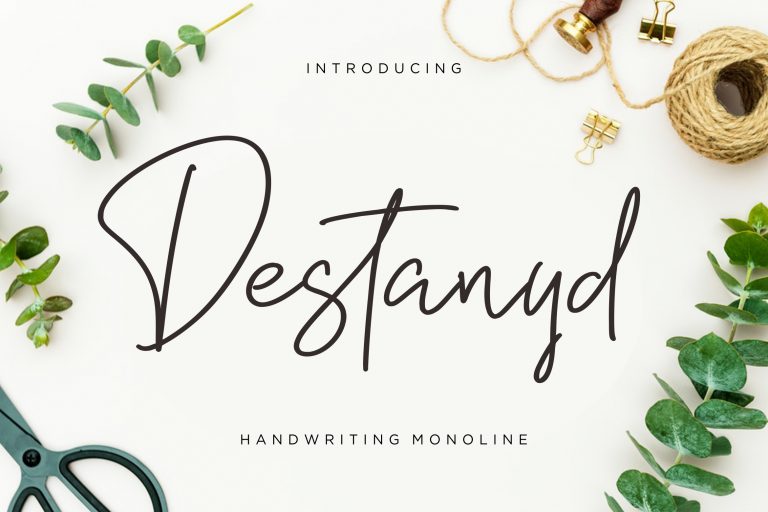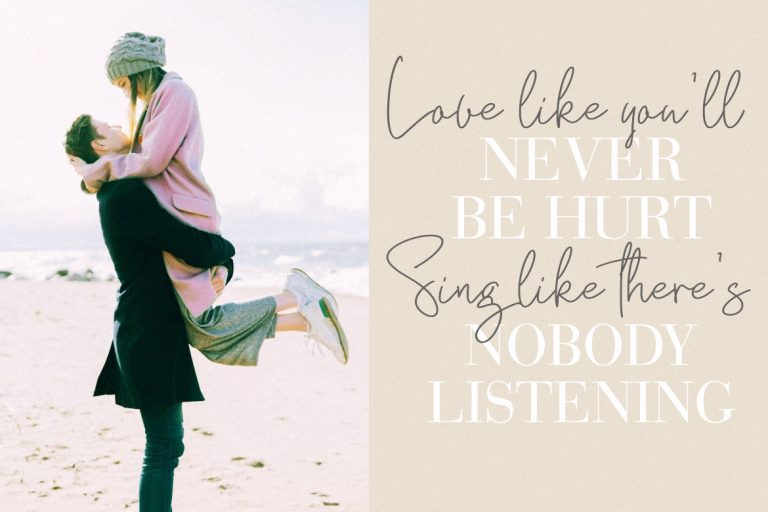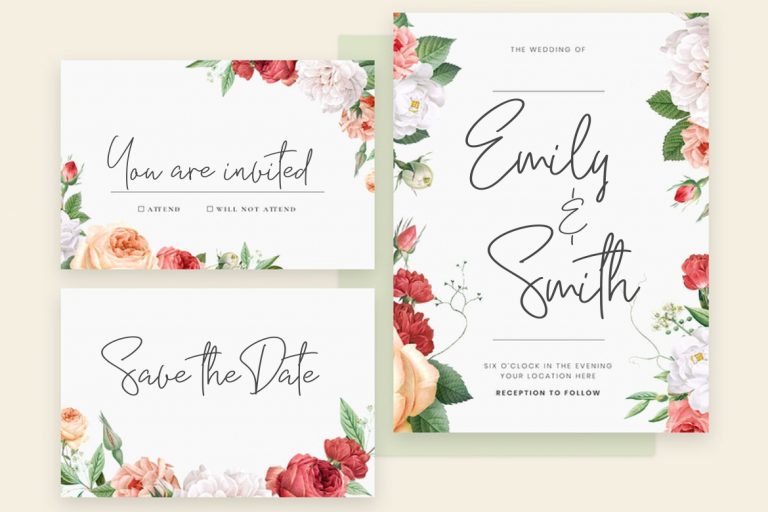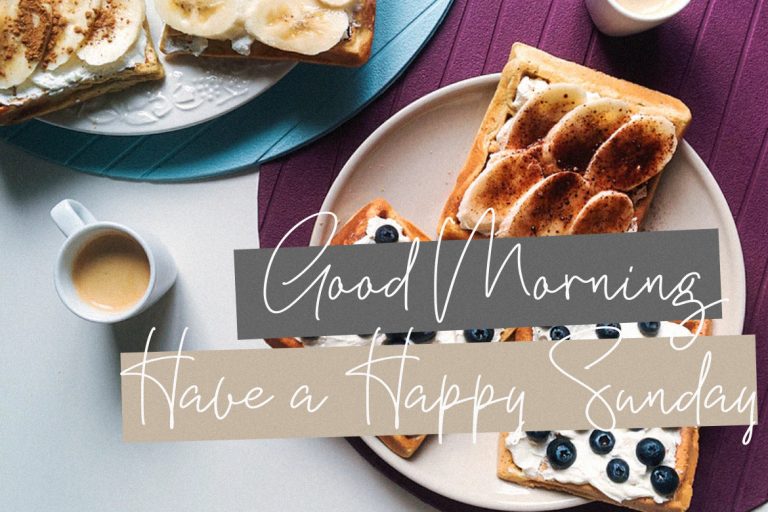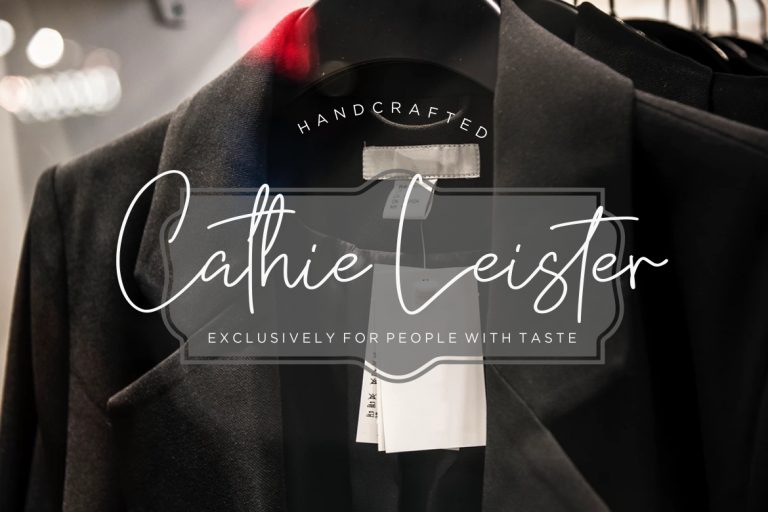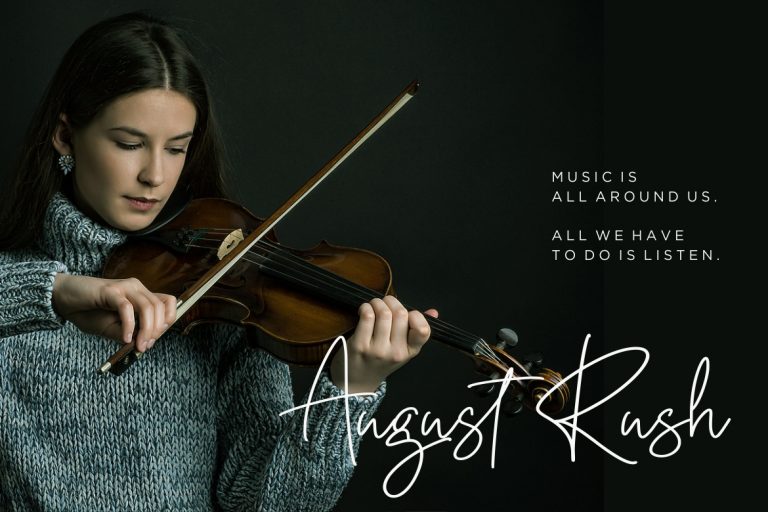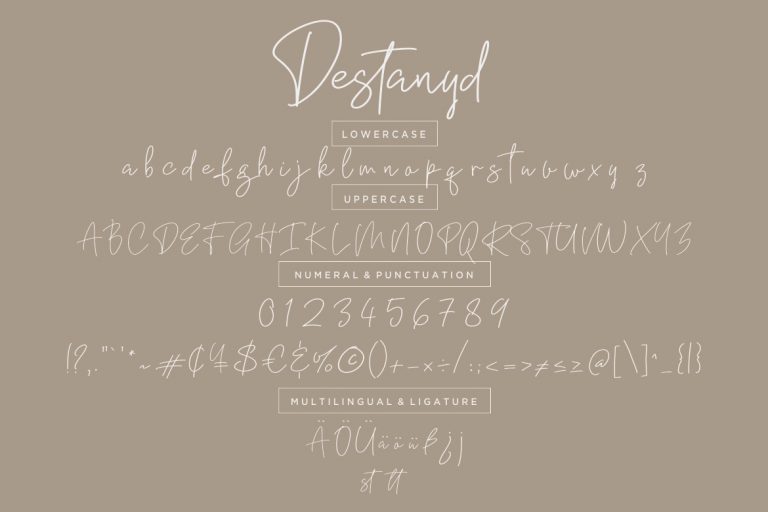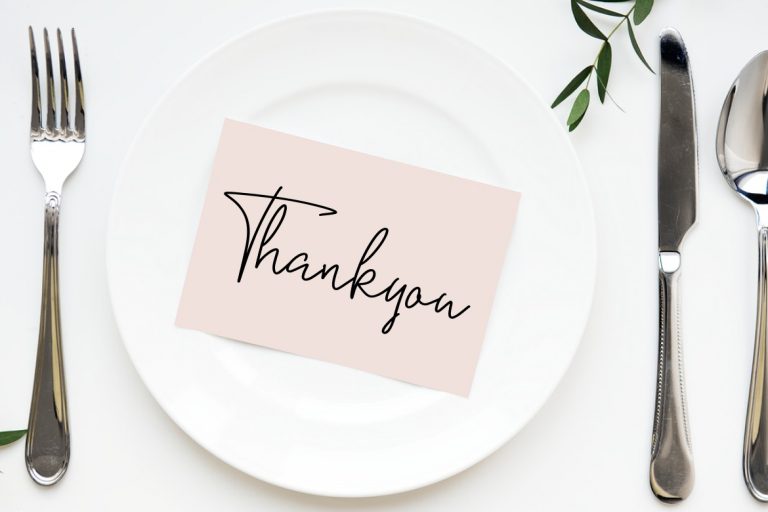
Destanyd is signature handwriting monoline font with elegant and classy looks.
Destanyd is perfect for branding projects, logo, wedding designs, social media posts, advertisements, product packaging, product designs, label, photography, watermark, invitation, stationery and any projects that need handwriting taste.
• Fonts include multilingual support for; ä ö ü Ä Ö Ü ß ¿ ¡
Destanyd Handwriting Monoline Font